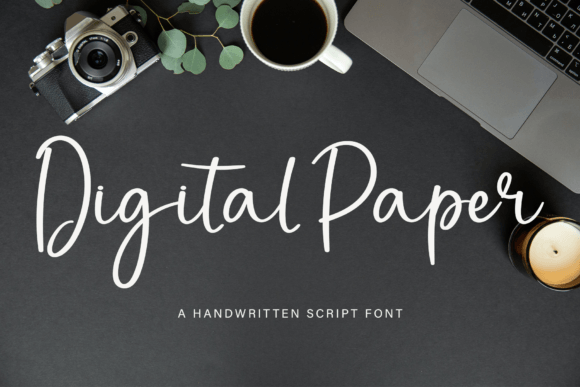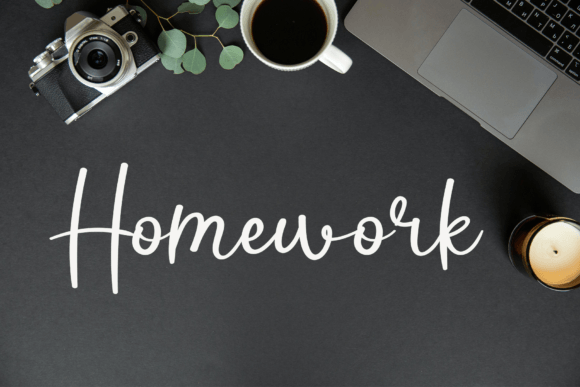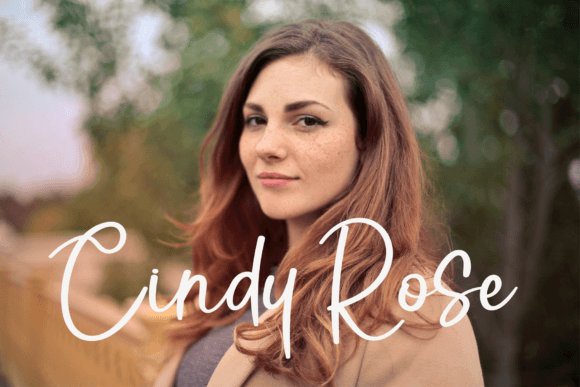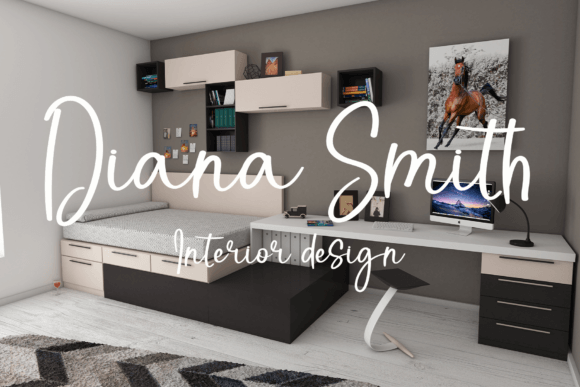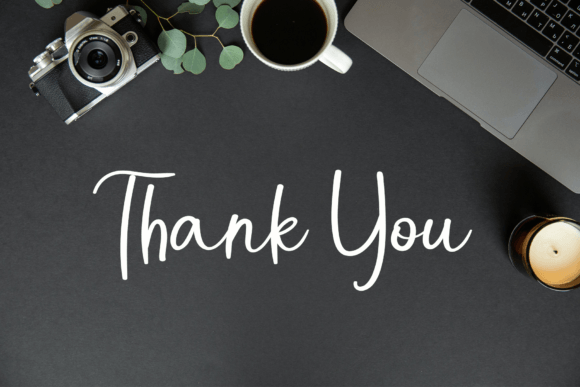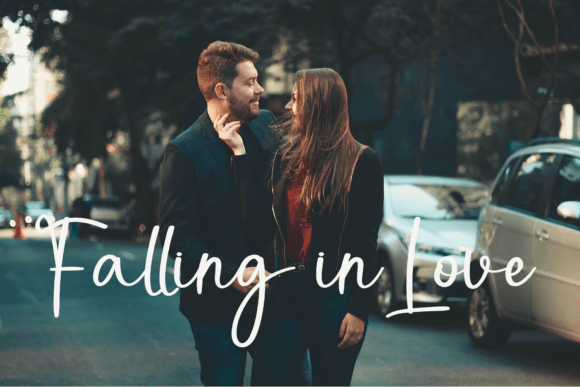
Digital Paper Font
Digital Paper Font : A Charming Handwritten Script Font for Joyful Designs
Introducing Digital Paper, a delightful handwritten script font that brings warmth and romance to your creative projects. This versatile typeface is perfect for infusing joy and sweetness into various designs, making it an essential tool for both professional designers and hobbyists alike.
Key Features of Digital Paper Font
• Authentic Handwritten Style: Adds a personal, romantic touch to text
• Versatile Application: Ideal for wedding invitations, greeting cards, and social media graphics
• Joyful and Romantic: Captures the essence of love and happiness in designs
• User-Friendly: Suitable for both experienced designers and beginners
Perfect for Romantic and Heartfelt Projects
Digital Paper excels in creating stunning wedding invitations, romantic greeting cards, beautiful social media graphics, and sweet creative project designs. Its graceful and sweet style ensures your content resonates with a joyful spirit, making it ideal for projects that aim to convey heartfelt emotions.
Enhance Your Design Collection
Why Choose Digital Paper?
Digital Paper stands out for its ability to add a touch of warmth and personality to any design. Its handwritten script style creates an intimate connection with the viewer, making it perfect for designs that need to feel personal and heartfelt. From wedding stationery to social media posts, this font can elevate your designs with its charming character.
Digital Paper is more than just a font; it’s a tool for expressing love and joy through design. Its versatility allows it to shine in various applications, from formal invitations to casual social media content. By adding Digital Paper to your font collection, you’re equipping yourself with a powerful asset that can transform ordinary text into captivating, emotion-filled designs. Add Digital Paper to your font collection today and watch as it brings a new level of charm and warmth to your creative projects. Let this lovely, sweet handwritten style be the secret ingredient that takes your designs from good to unforgettable.